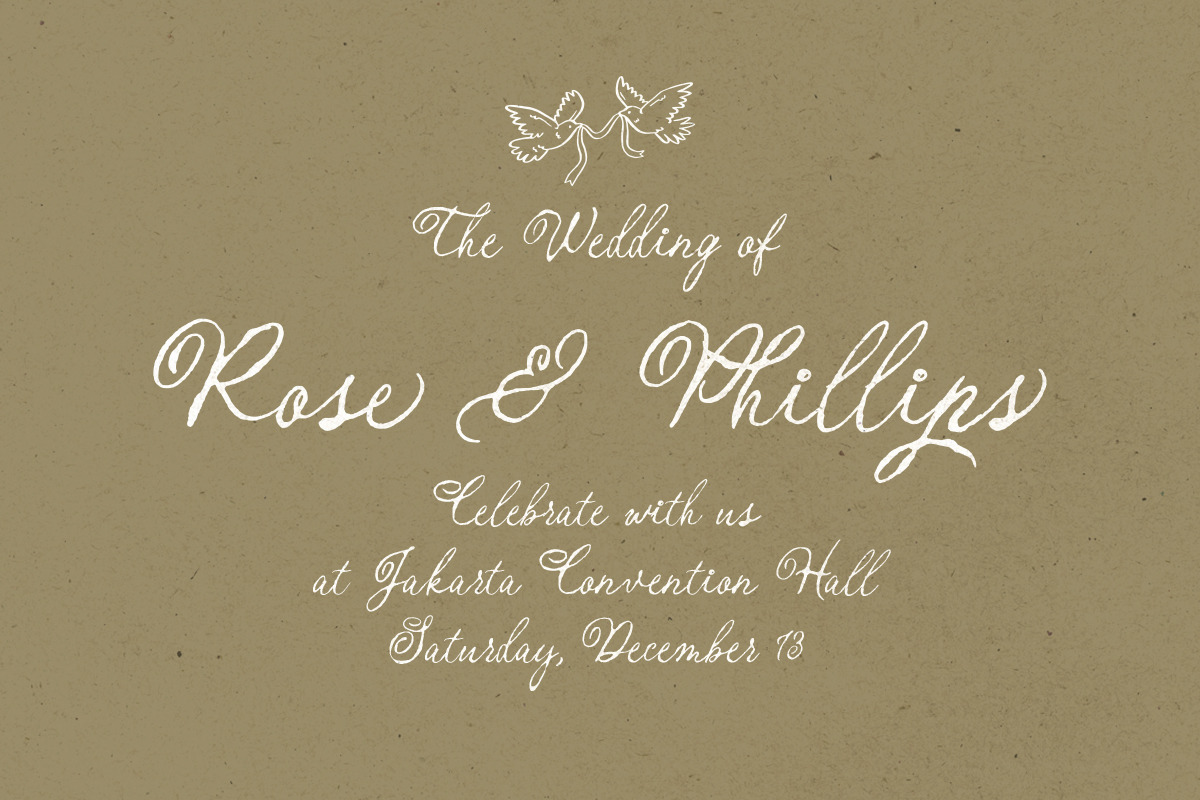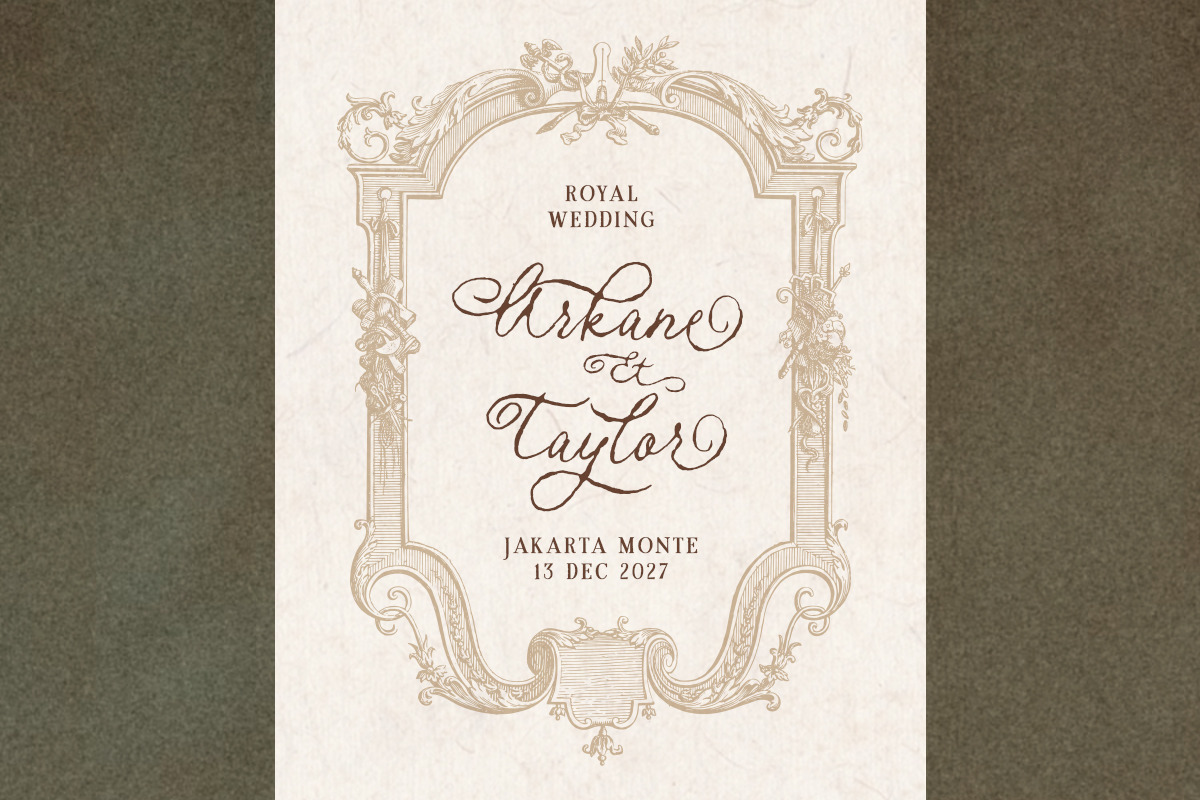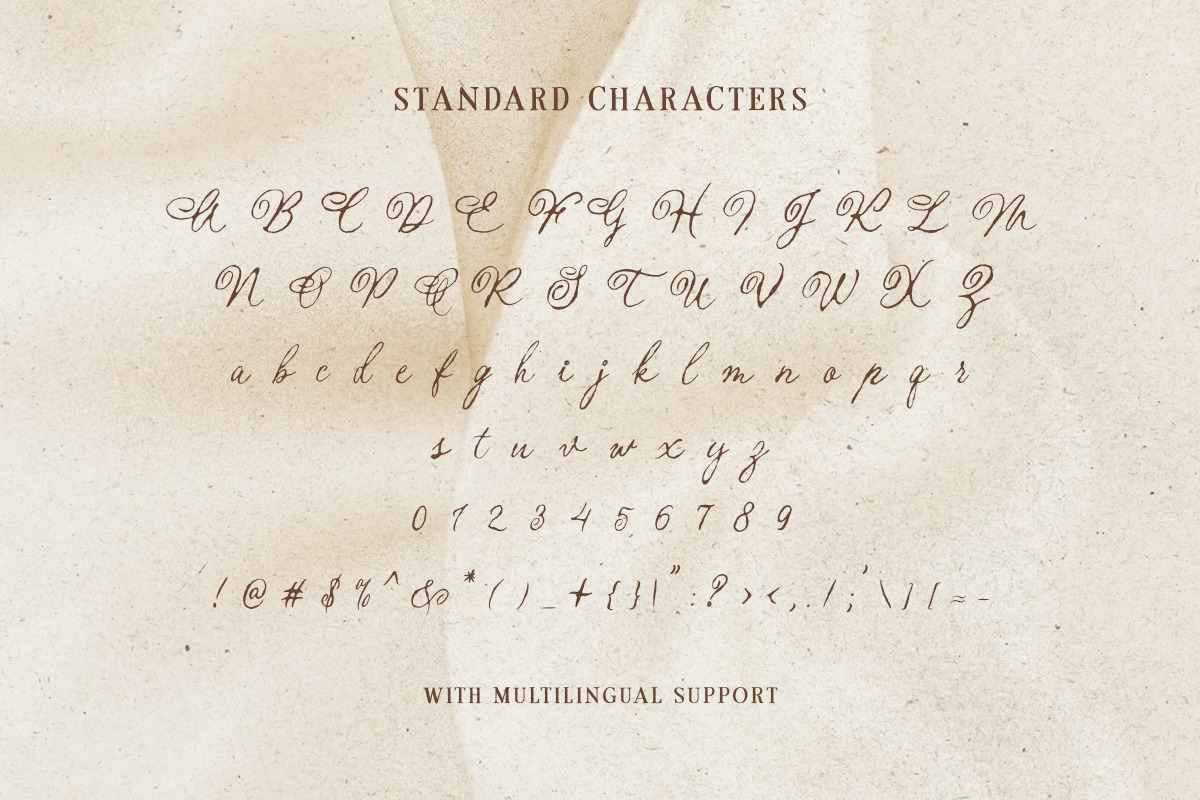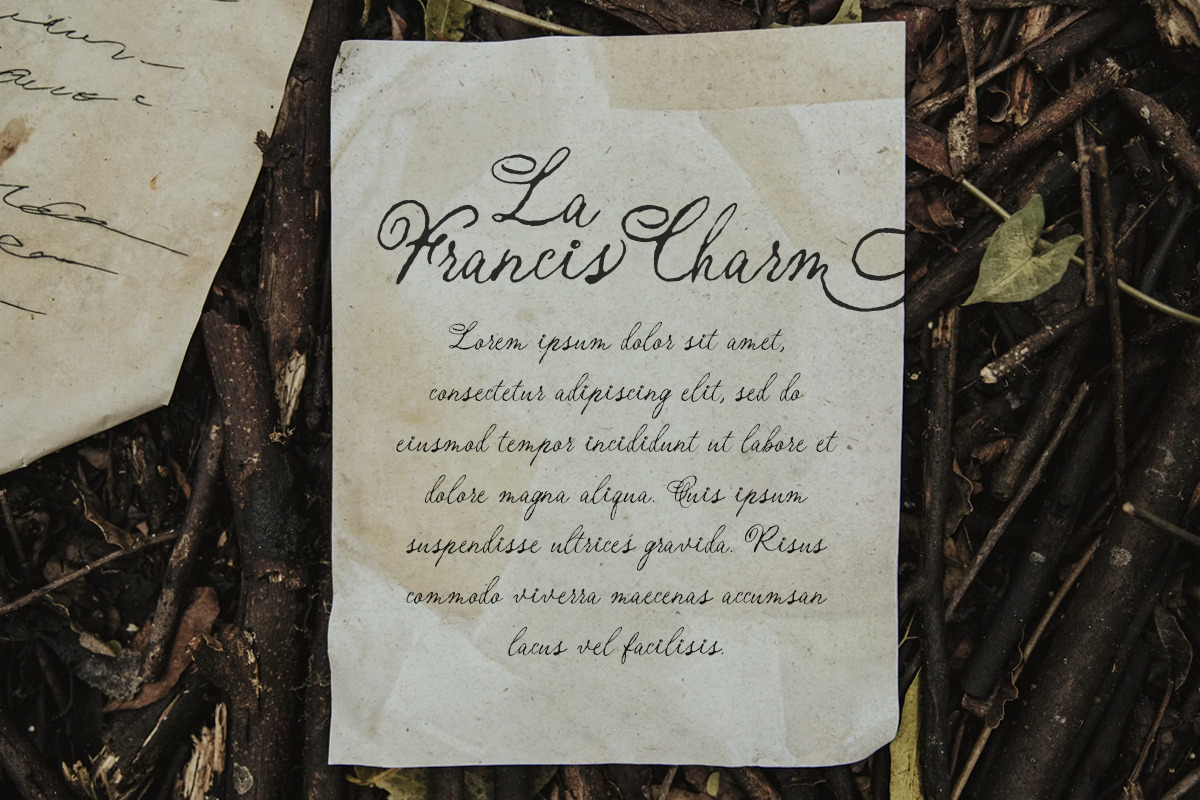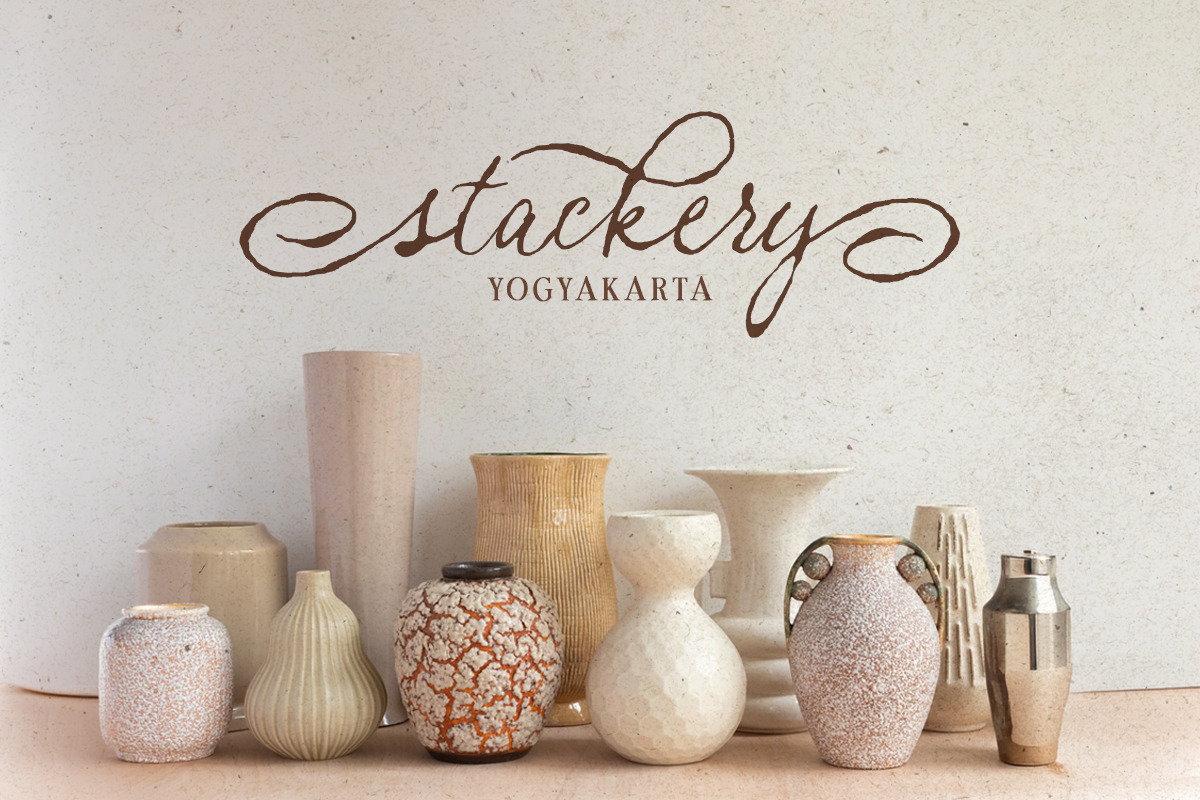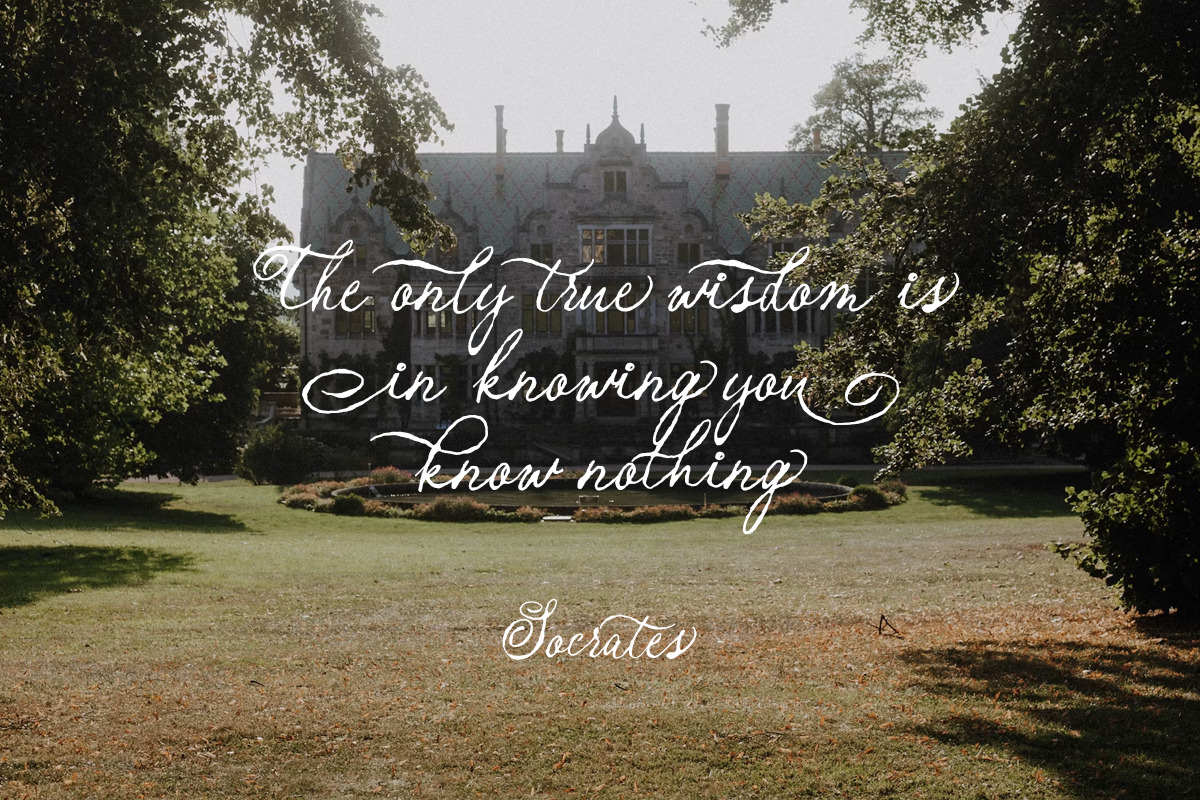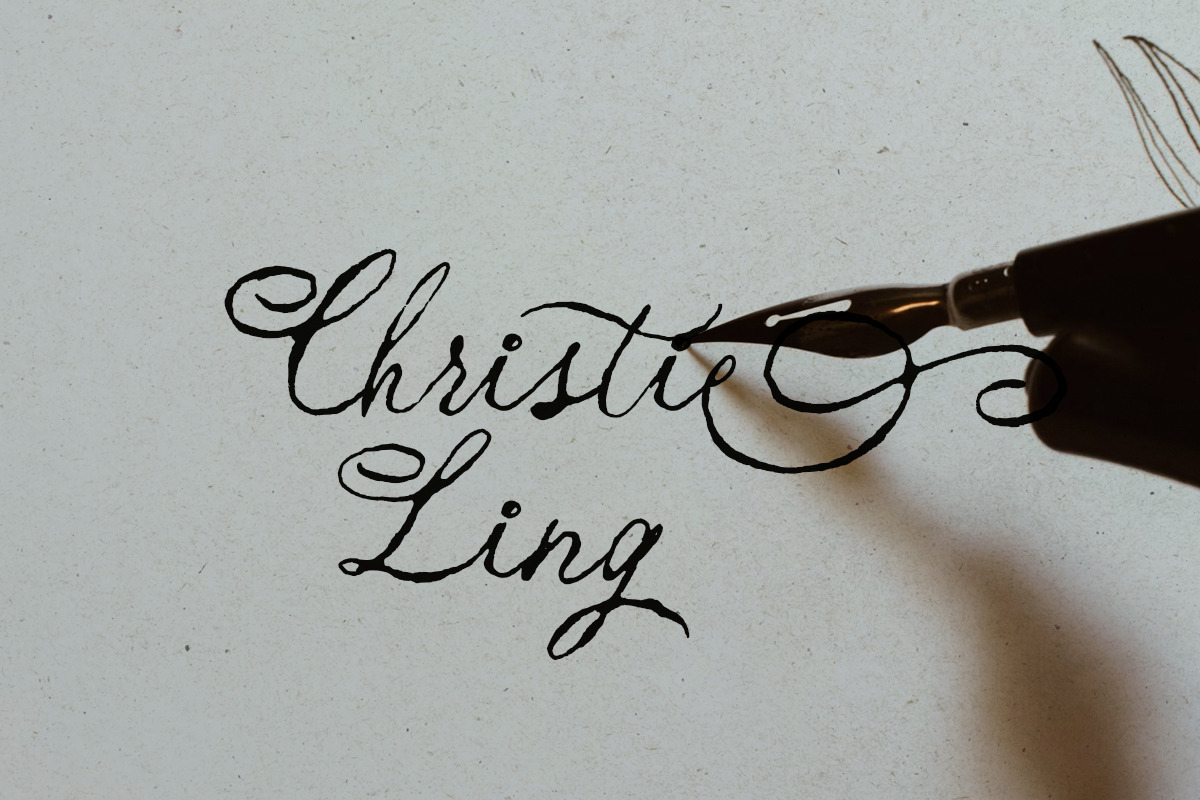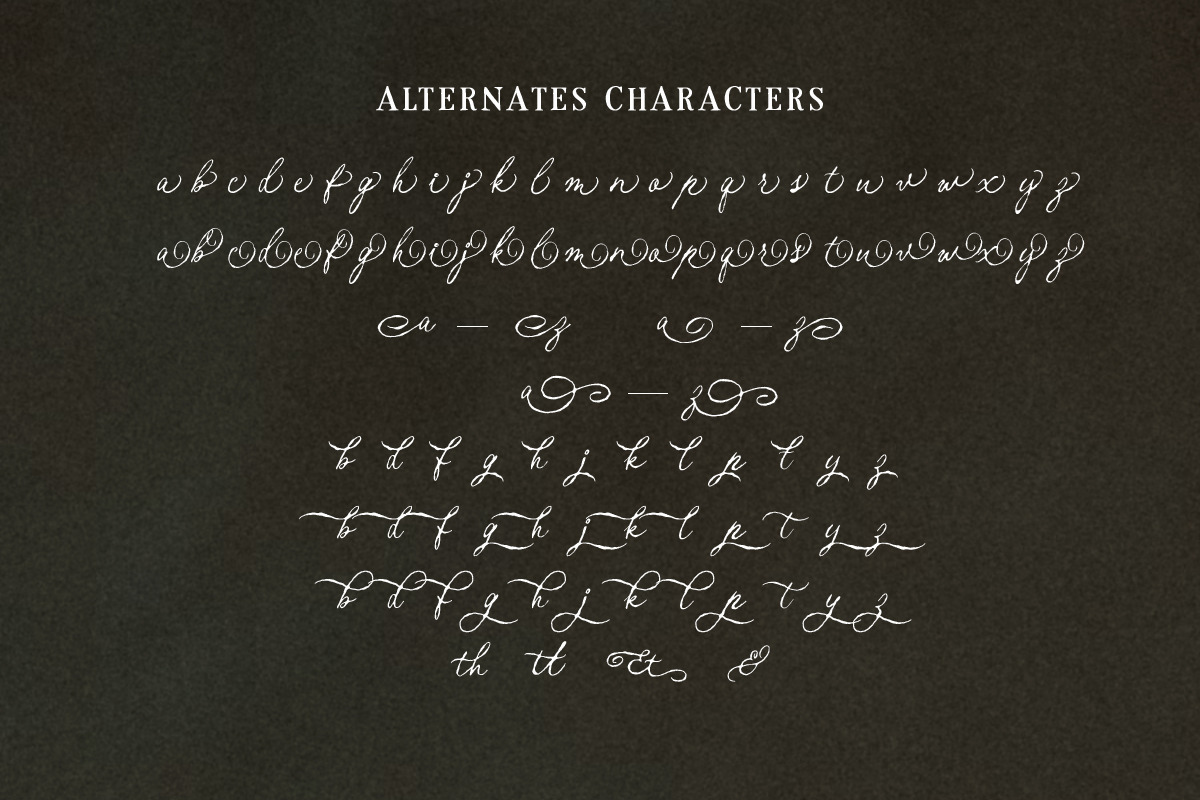
Enchanted Vintage Distressed Script
**Enchanted Vintage **captures the romance of forgotten manuscripts with flowing calligraphic strokes, graceful swashes, and a naturally weathered texture that feels rich with history. Inspired by antique handwriting and timeless elegance, this script carries a warm vintage spirit that suits wedding invitations, boutique branding, book covers, café menus, artisan packaging, and editorial layouts.
Uppercase & lowercase
Numbers and punctuation
Alternates & Ligatures